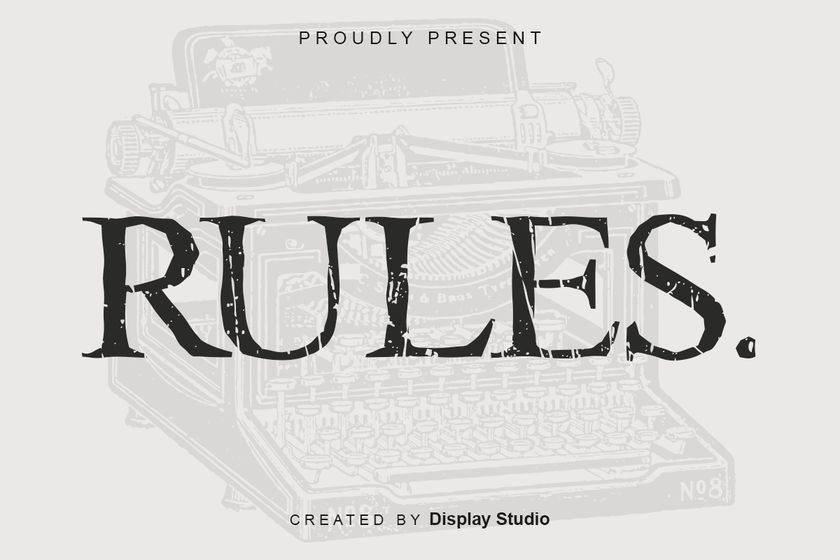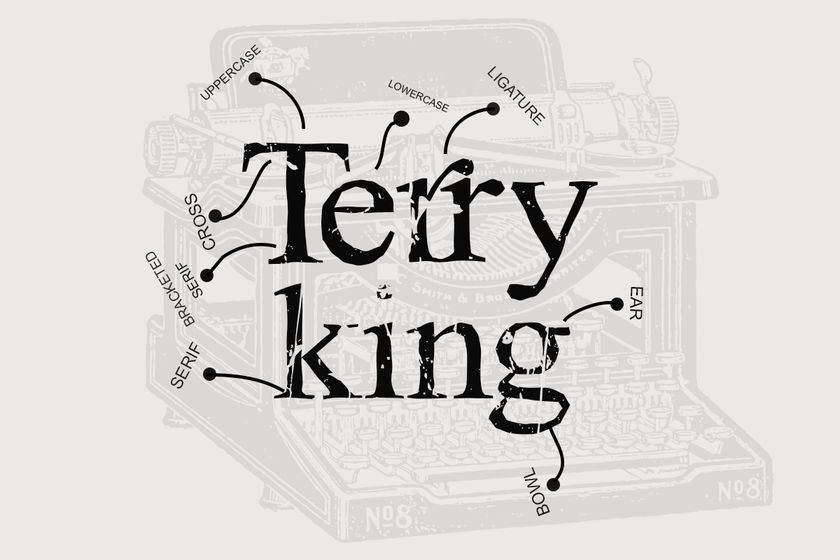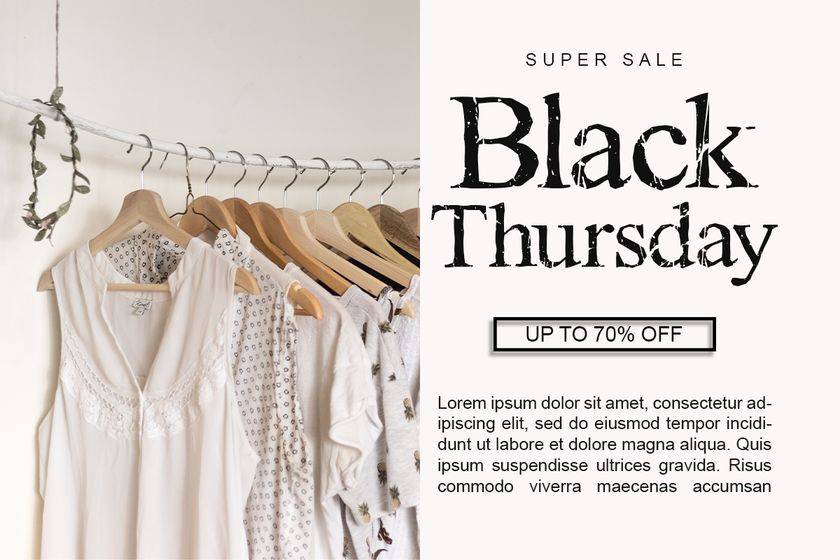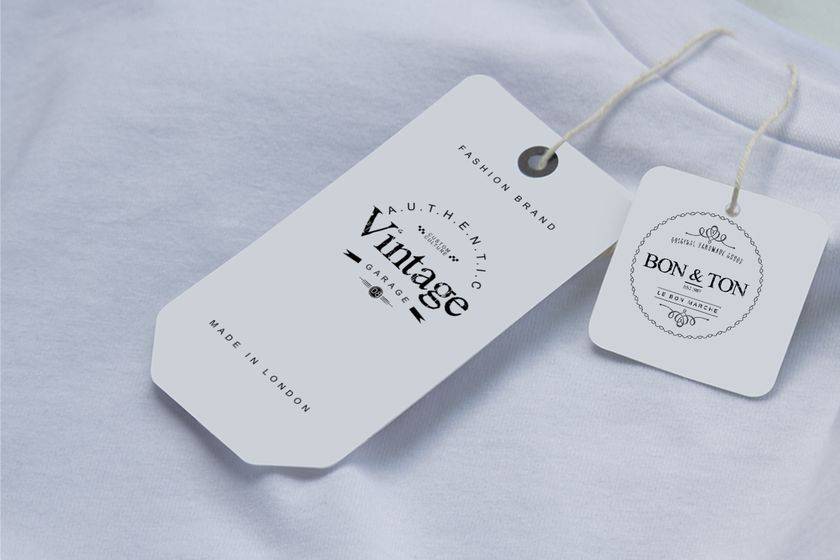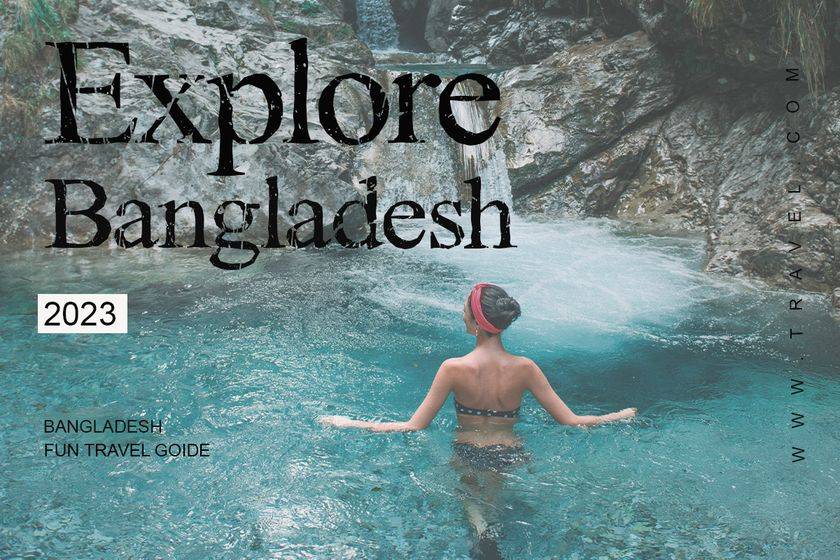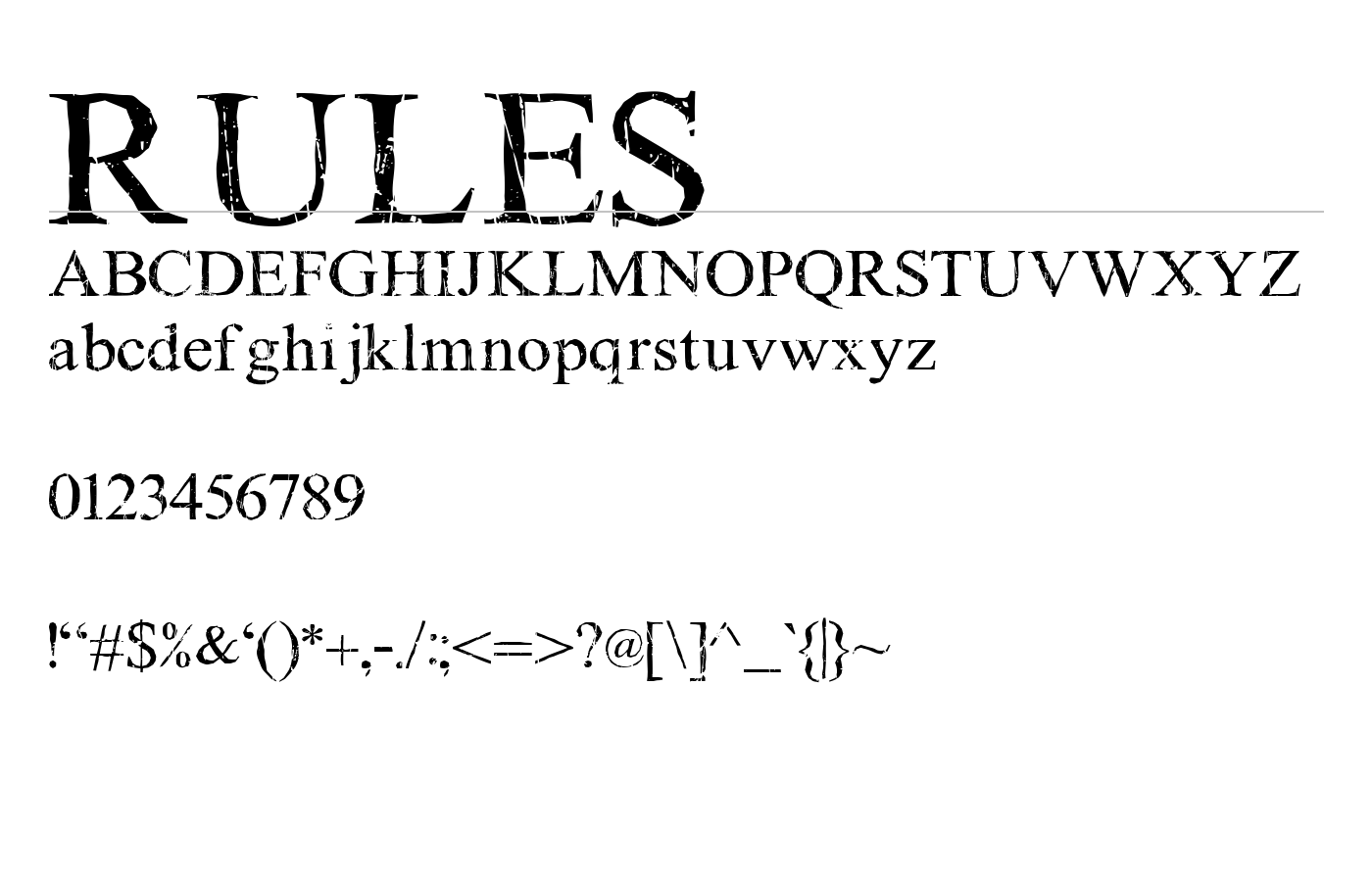
Rules Font is a distressed serif typeface with a vintage, worn look that adds character and a sense of rugged authenticity. Its irregular edges and textured strokes create an impression of weathered print, making it ideal for designs that want to evoke a nostalgic or handcrafted feel. This font works well for posters, branding, and editorial projects that want to stand out with a unique, expressive style.
Rules Font
About Rules Font